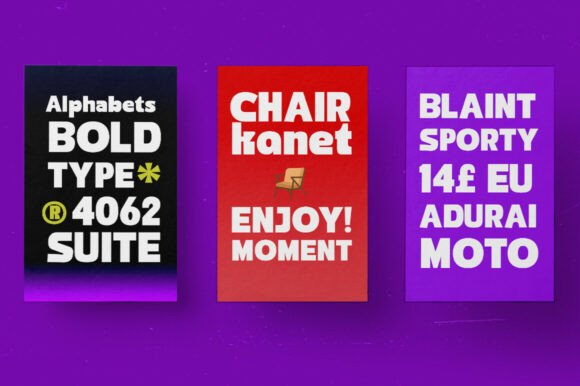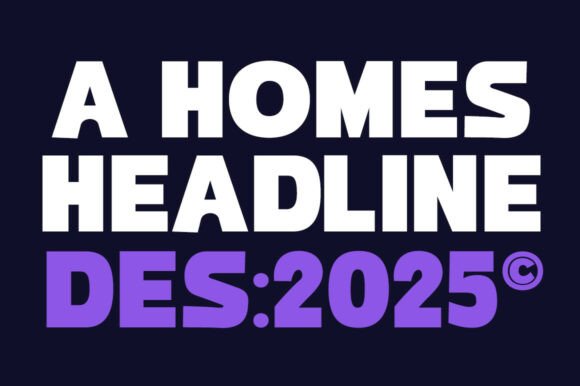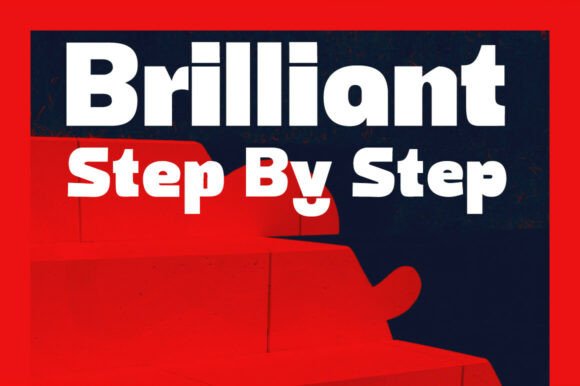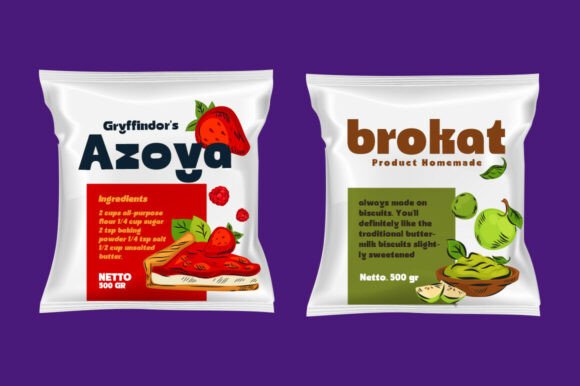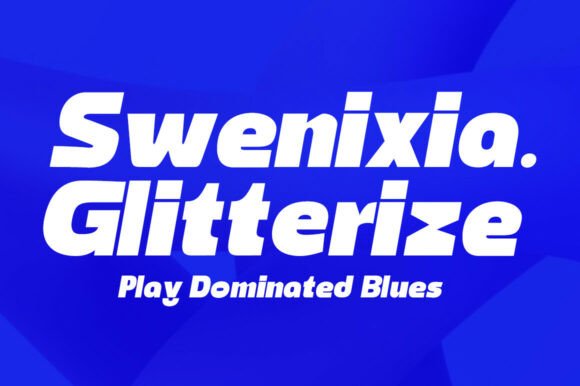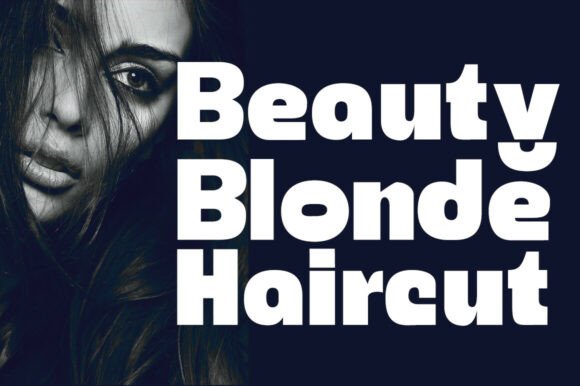
The Moment That Inspired a New Era in Typography
Remember that rush of excitement when you finally find the perfect font for your project? It’s like discovering a missing piece of a puzzle, and everything falls into place. That’s exactly what happened when designers stumbled upon Bright Style Font – a modern bold sans typeface that embodies confidence, clarity, and creative energy.
Bright Style Font is designed to stand out in contemporary design projects, from logos and headlines to posters and product packaging. Its unique blend of geometric precision and smooth curves creates a clean yet powerful look that’s perfect for fashion, tech, and lifestyle brands. With its strong structure and balanced proportions, this font is a valuable asset for designers looking to add a professional tone with a stylish edge.
Whether you’re a seasoned pro or just starting out, Bright Style Font offers the flexibility and versatility you need to create bold contrasts within your typography. Its meticulous craftsmanship ensures visual harmony and legibility, even at large display sizes, making it an indispensable tool for any design project.
Bright Style Font Key Features
- Font Family: Bright Style Font is a sans-serif font family designed for digital use.
- Unique Characteristics: Bright Style Font features a unique blend of modern and clean design elements, with subtle rounded edges and a highly legible x-height.
Bright Style Font Review
I recently had the chance to work with the Bright Style Font, and I must say it’s a mixed bag. On the one hand, I really like its ✨ bold and playful aesthetic, which is perfect for eye-catching headlines and titles. The font is highly customizable, allowing me to adjust the size, color, and spacing to fit my design needs.
- ✨ High contrast and legibility make it ideal for digital displays.
- ✨ Customizable and versatile, suitable for a wide range of design projects.
- ✨ Available in various weights and styles, including bold, italic, and condensed.
However, I also encountered some limitations. ⚠️ The font can be quite busy, especially when used in large blocks of text, which can be overwhelming for the reader. Additionally, the font doesn’t support many languages, which may be a concern for global designs.
- ⚠️ Can be too bold or overpowering when used extensively.
- ⚠️ Limited language support, which may restrict its use in multilingual projects.
Overall, I think the Bright Style Font is a solid choice for designs that require a bold and attention-grabbing look. However, it’s essential to use it judiciously and balance it with more readable fonts to avoid overwhelming the viewer.
For the most effective use of Bright Style Font, use it for titles, headings, and emphasis in your designs. It pairs well with bold and colorful backgrounds.
1. Creating eye-catching titles and headings.
2. Adding emphasis to key messages or calls-to-action.
3. Designing visually appealing social media graphics and advertisements.
Playfair Display is a high-end serif font that is perfect for creating elegant and sophisticated designs. It’s ideal for use in headings, titles, and other areas where a touch of luxury is desired.
Compared to Bright Style Font, Playfair Display has a more refined and sophisticated look, making it suitable for high-end branding and luxury products. It’s also more versatile and can be used in a variety of contexts, from print to digital design.